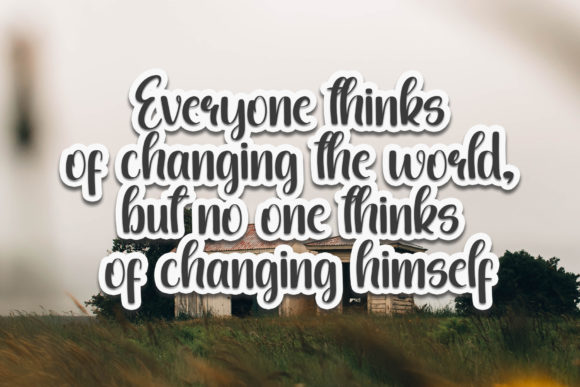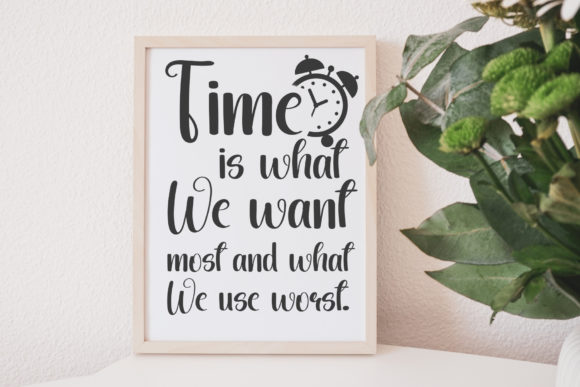
Gloria Farmhouse Font
db-ku.com - Script & Handwritten -- Gloria Farmhouse is a lovely and timeless handwritten font. It is the best choice for creating eye catching logos, branding and quotes. Every letter has a unique and beautiful touch, which will make your design come alive!